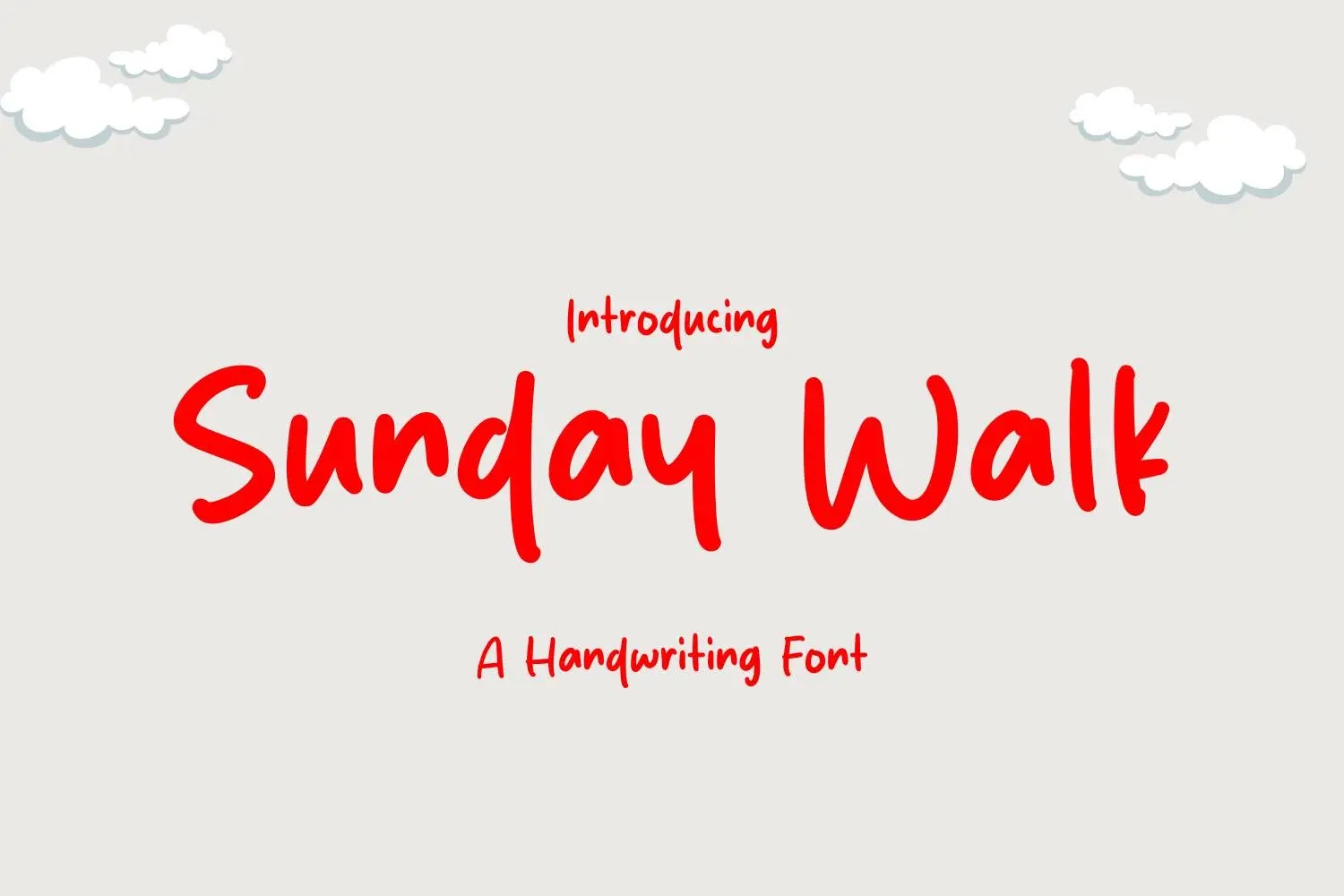
Sunday Walk Font is a relaxed and inviting handwritten typeface that captures the charm of a casual stroll through your thoughts. With its smooth, natural strokes and gentle rhythm, this font brings a touch of warmth and personality to your creative work. Ideal for quotes, invitations, planners, or personal branding, Sunday Walk Font delivers an effortless handwritten feel that's both stylish and authentic.
The font includes a complete set of uppercase and lowercase letters, numerals, punctuation, and multilingual support—making it versatile for global use. Provided in TTF, OTF, and WOFF formats, Sunday Walk Font installs easily on both Mac and PC systems. Its friendly design and clear legibility make it a great fit for both digital and print projects.